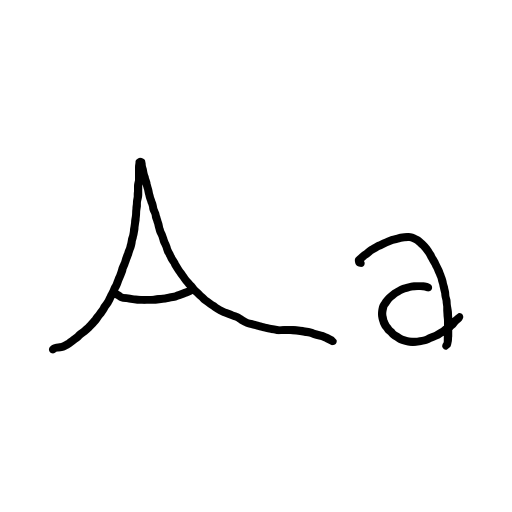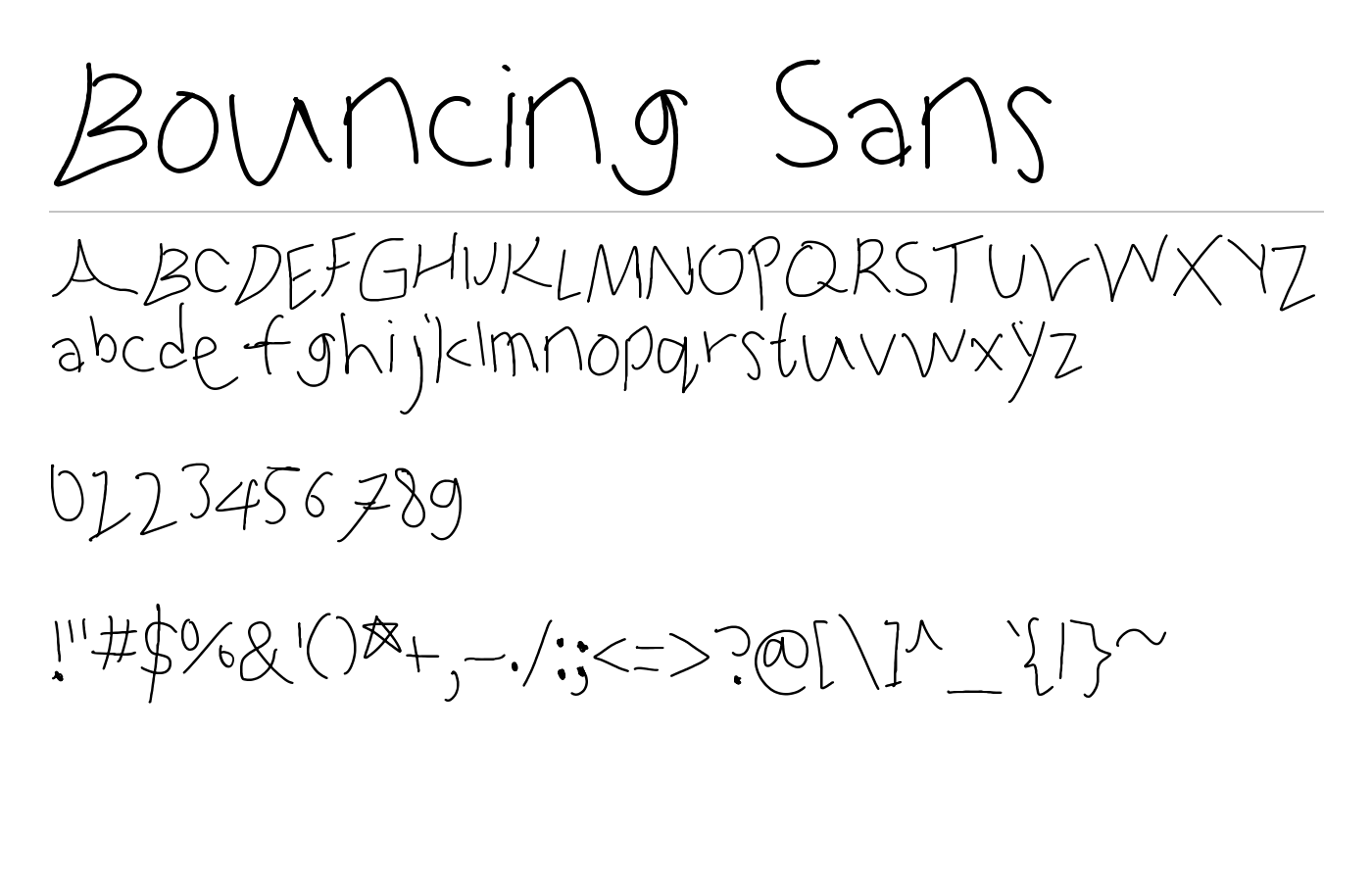
Bouncing Sans is a playful and informal handwritten sans serif font with a lively, uneven baseline that gives it a whimsical and energetic character. Its thin, delicate strokes and irregular letterforms make it ideal for creative, casual, or child-friendly designs, such as invitations, greeting cards, or fun branding projects wanting a personal touch. This font adds a sense of spontaneity and friendliness, standing out with its quirky, approachable style.
Bouncing Sans Font